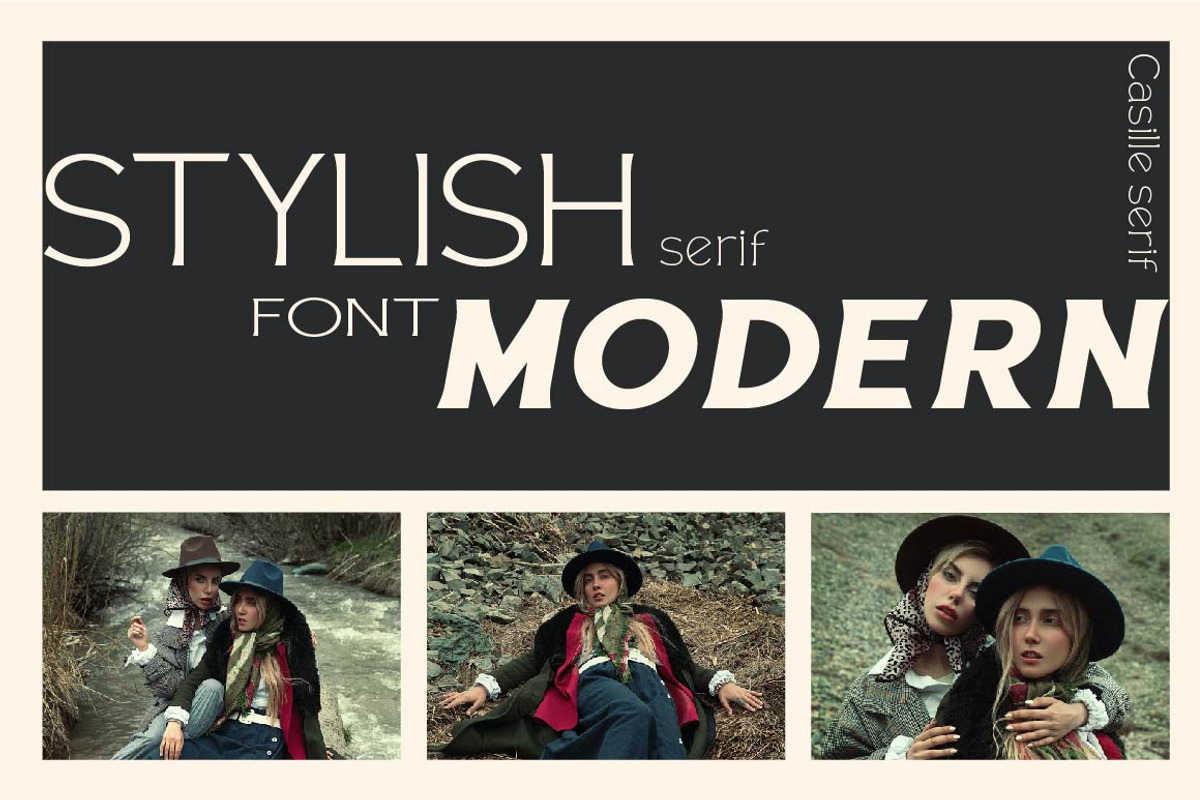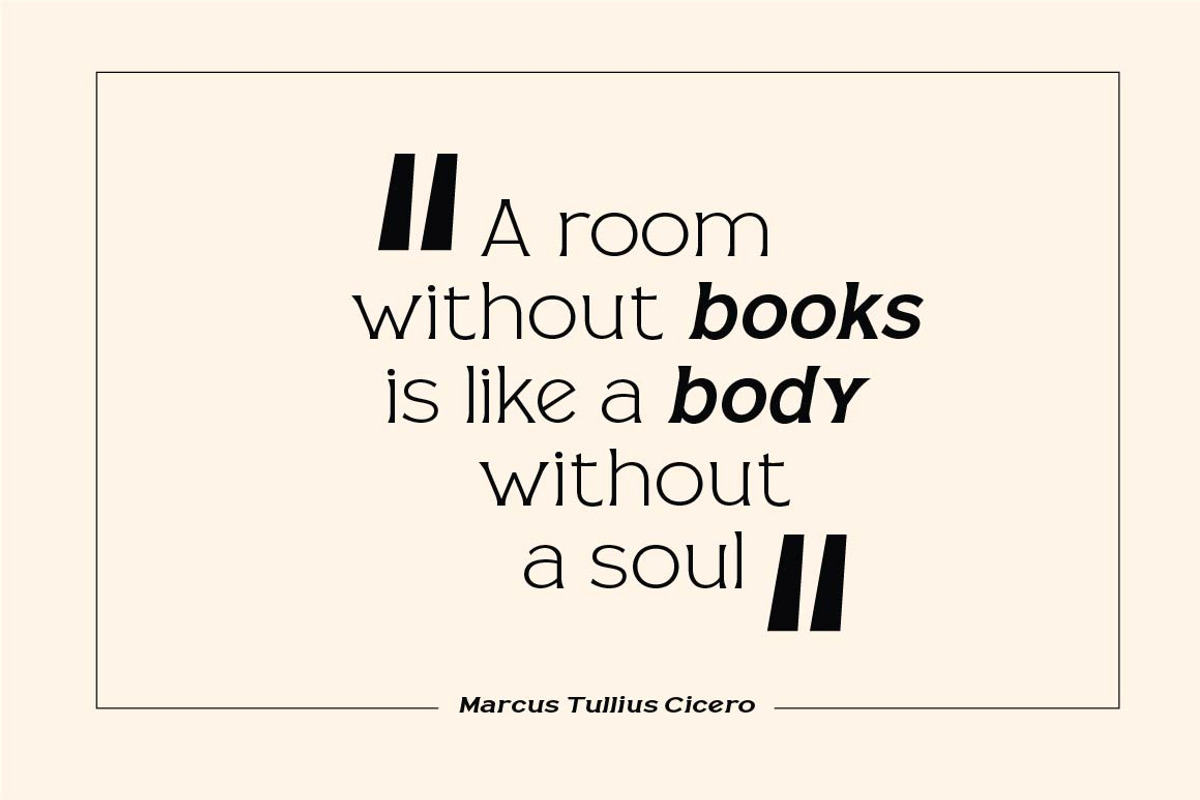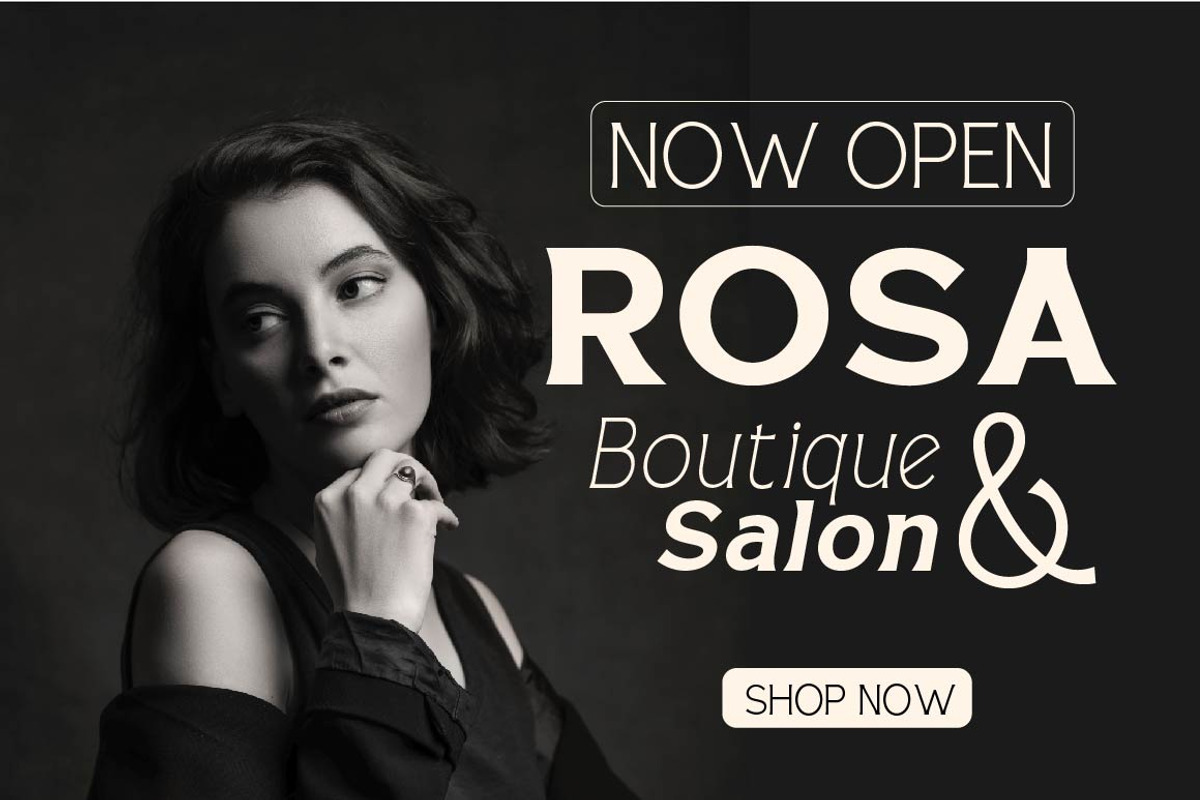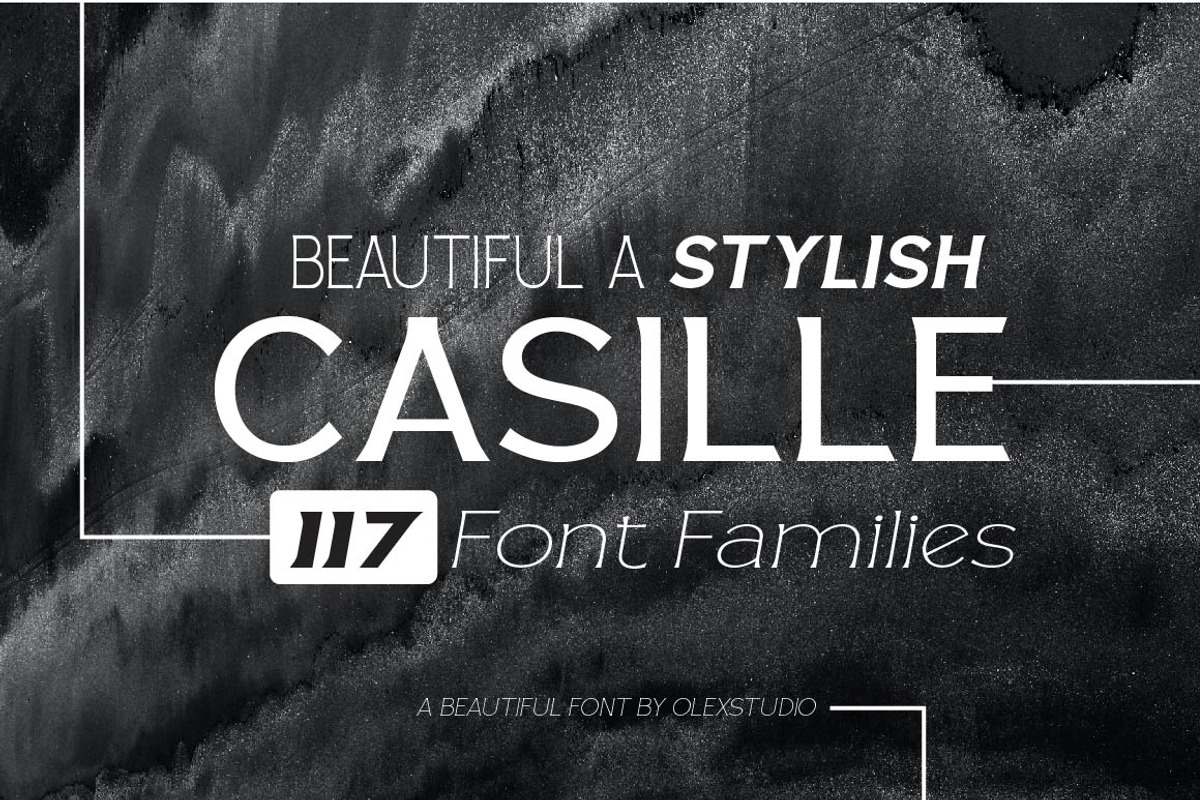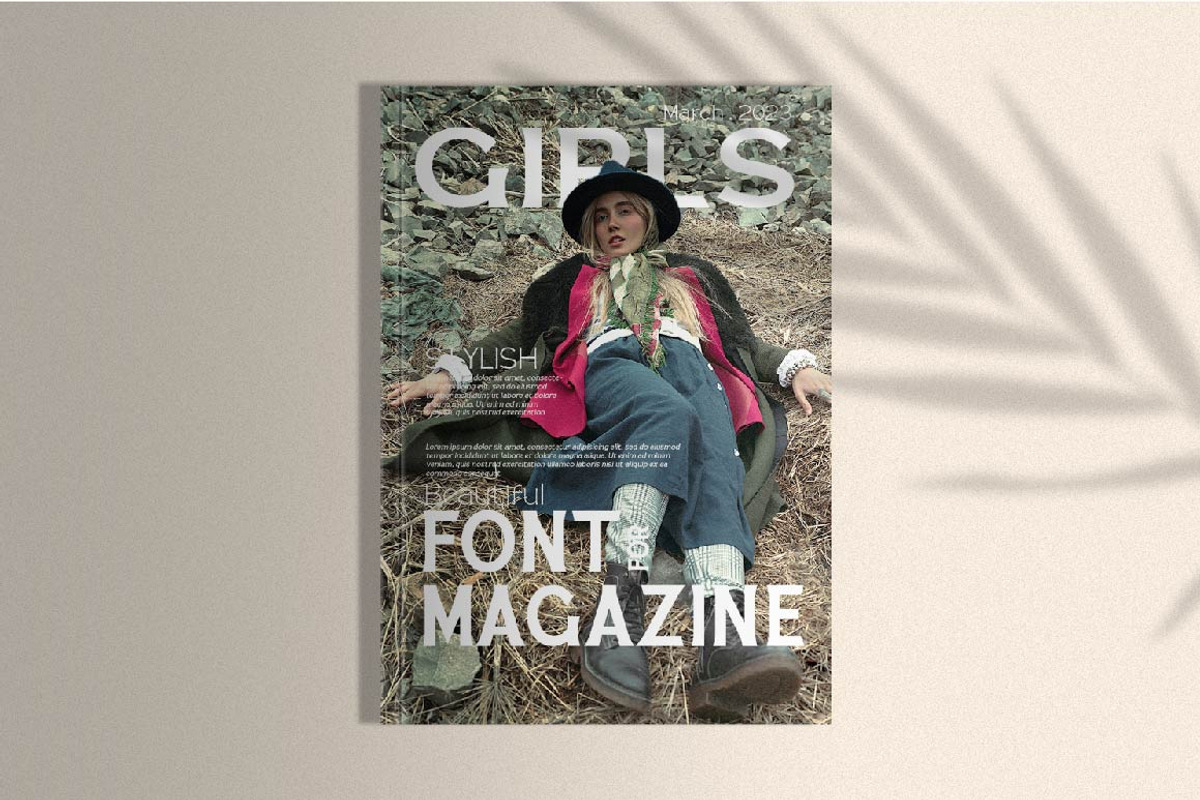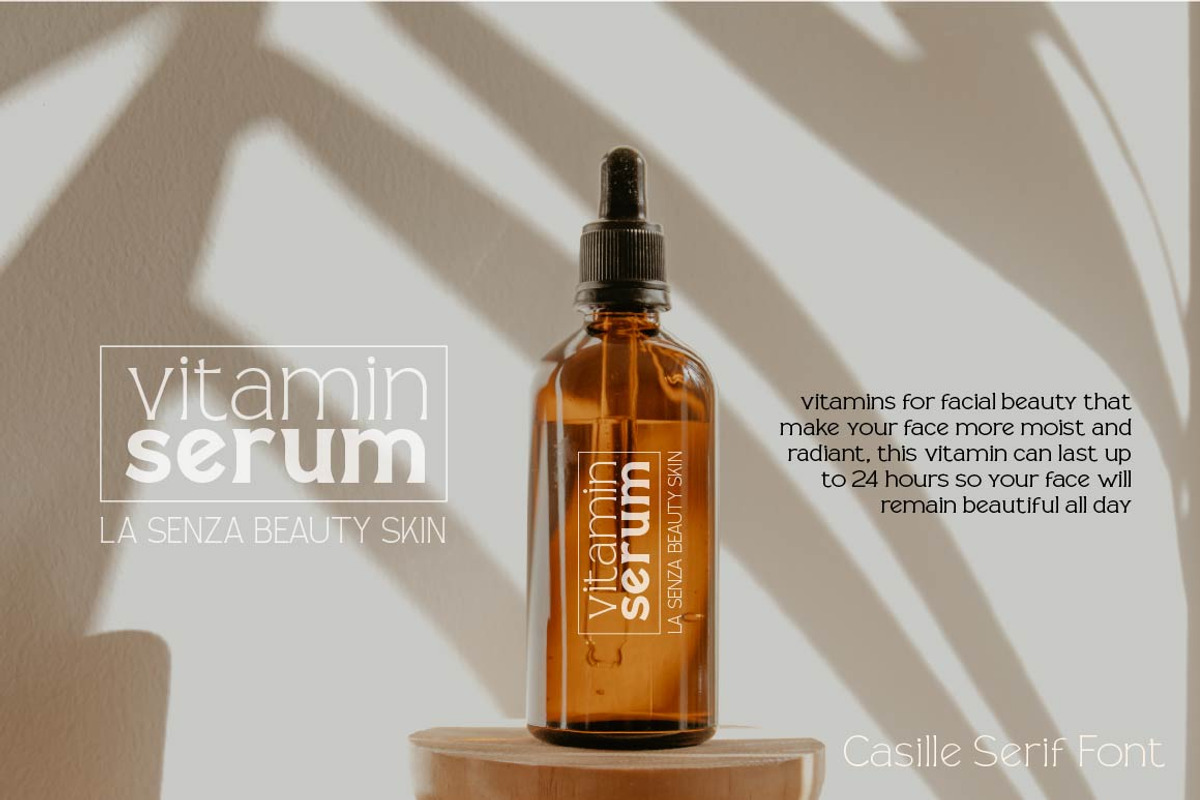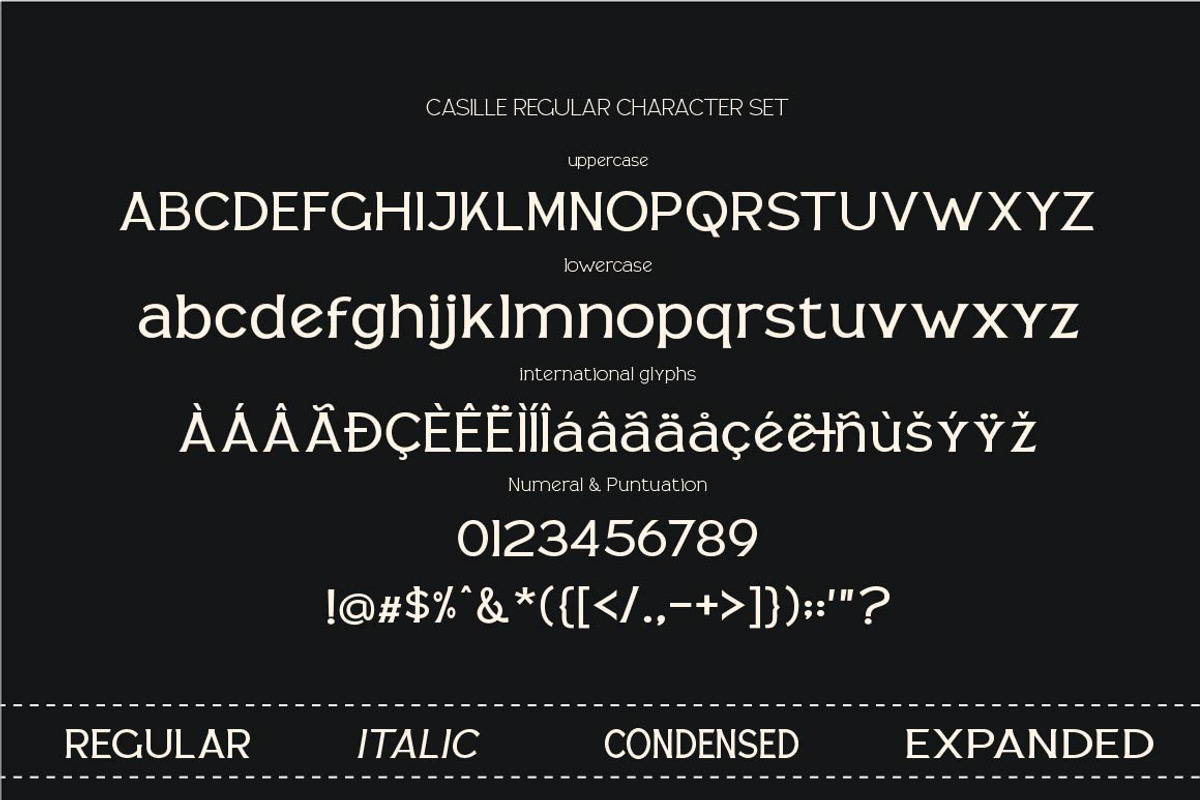
CASILLE - Serif Family
Casille font family is a really attractive font family that's perfect for invitations such as greeting cards, branding materials, business cards, quotes, posters, and more!
Casille font family is impressive in display size and easy to read in text size, with 126 families making this font very easy to use and a wide choice of families.
Casille font consists of Uppercase, Lowercase, Numeral and International Glyphs.